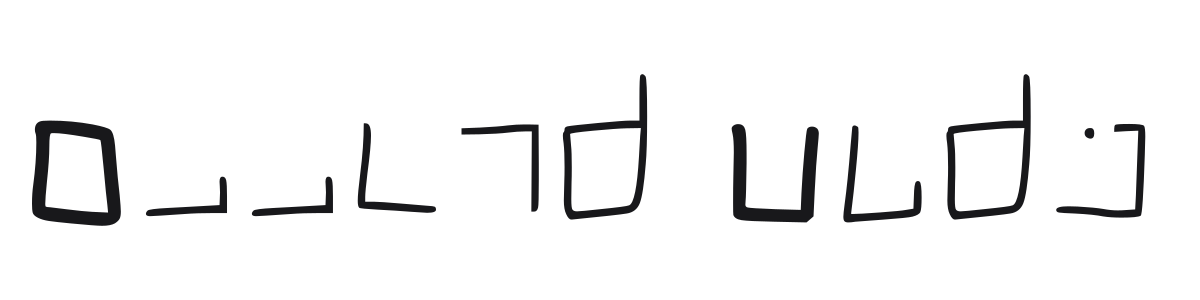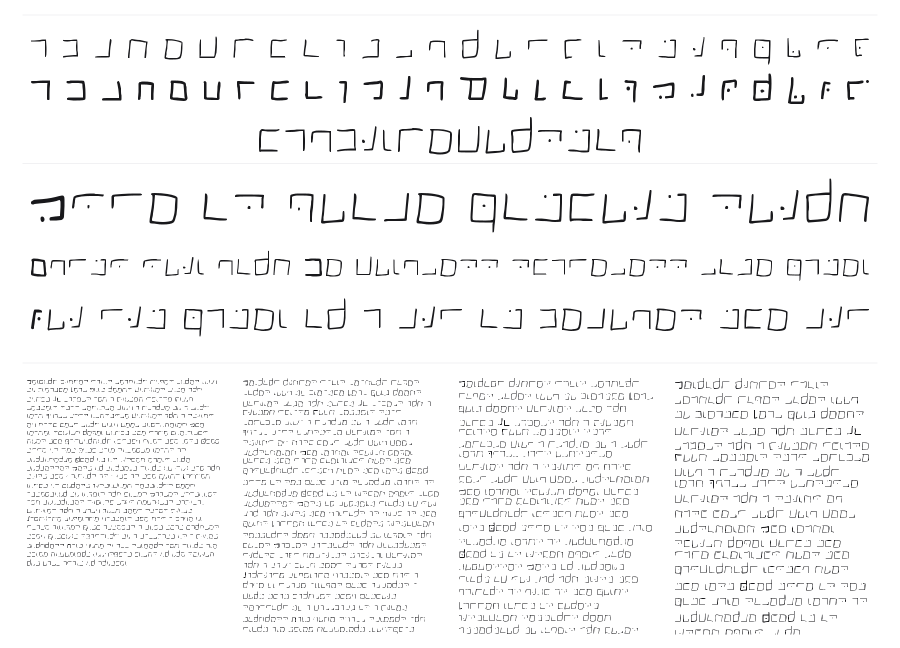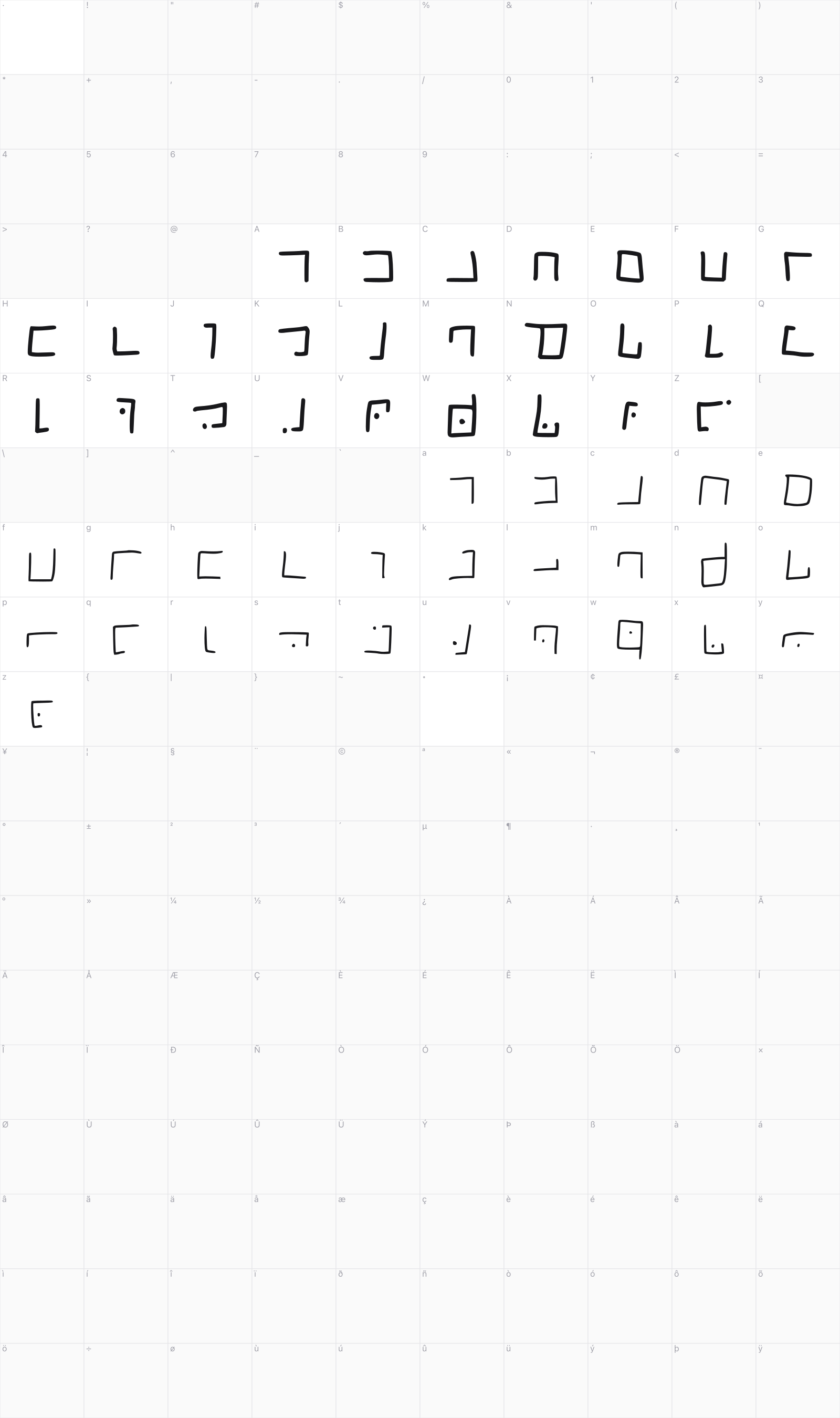
Ellian Font
by Quin Manne
Ellian is a thin geometric display font built from angular right-angle segments that give it the look of an invented alien or constructed script. Each character is assembled from rectangular fragments with wide open counters and a subtle hand-drawn wobble that softens the hard geometry. It reads as a kind of secret language, useful for sci-fi titles, game interfaces, and anything that needs to feel otherworldly.